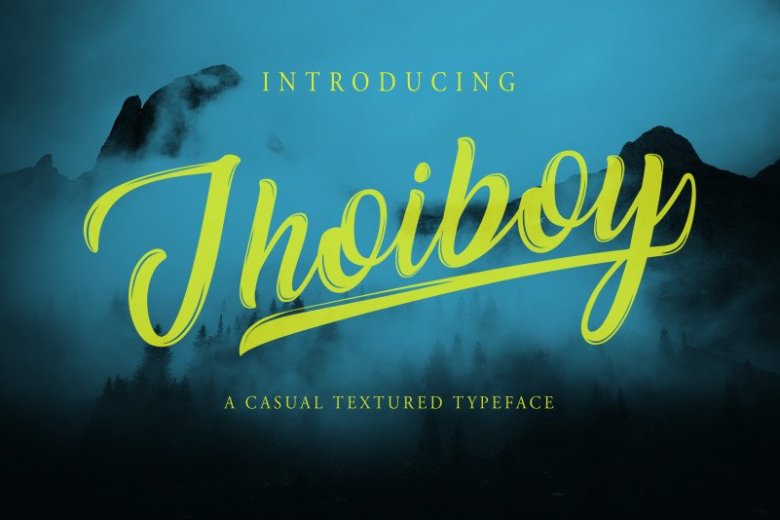
Jhoiboy Script Font
Jhoiboy Script Font feels equally charming and elegant. It looks stunning on wedding invitations, thank you cards, quotes, greeting cards, logos, business cards and every other design which needs a handwritten touch.
This font is PUA encoded which means you can access all of the glyphs and swashes with ease! It features a varying baseline, smooth lines, gorgeous glyphs and stunning alternates.
Jhoiboy Font is a casual grunge texture with many variations of font shapes to create a perfect and unique design.
Jhoiboy Font has 8 alternatives, 7 alternatives for lowercase and 1 alternative for uppercase, along with ligature and multilingual support that will suit you.